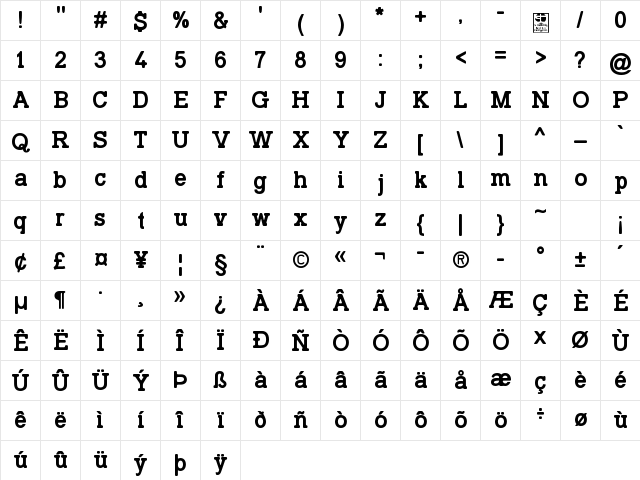
TypoSlab Irregular Demo Regular
Design Context for TypoSlab Irregular Demo Typeface
TypoSlab Irregular Demo combines the readability of serif typography with the visual weight of a slab construction, resulting in a typeface that feels both authoritative and approachable.
Works well in editorial design, news publishing, impactful branding, and poster typography.
Pro Tip: Try TypoSlab Irregular Demo set tight in headlines for a classic editorial feel. Its slab serifs create strong horizontal rhythm that anchors a page layout.